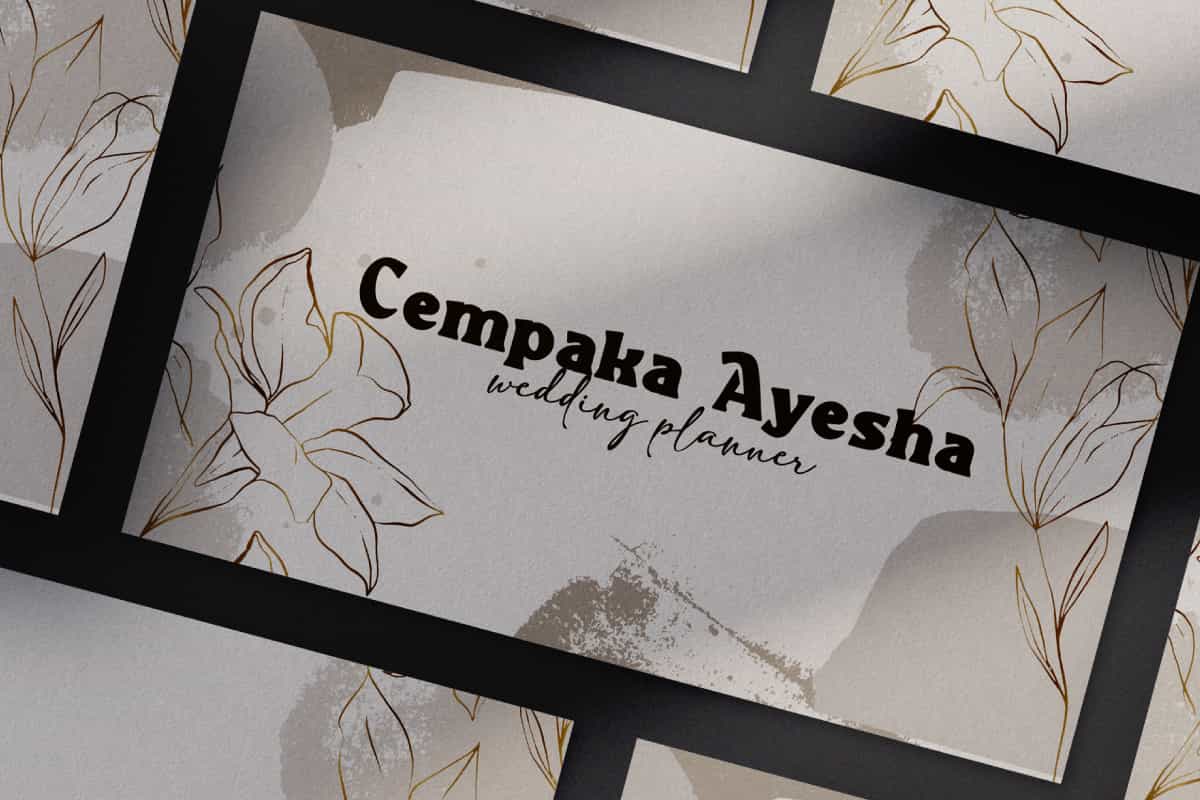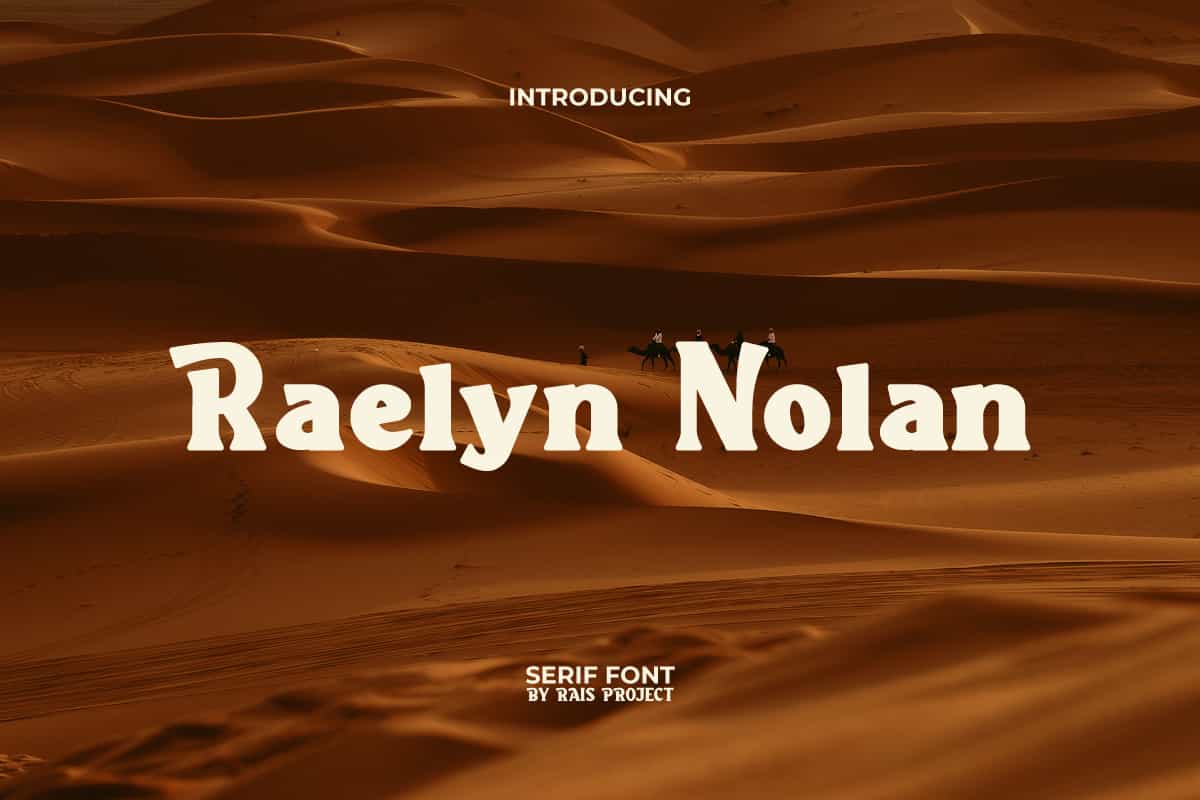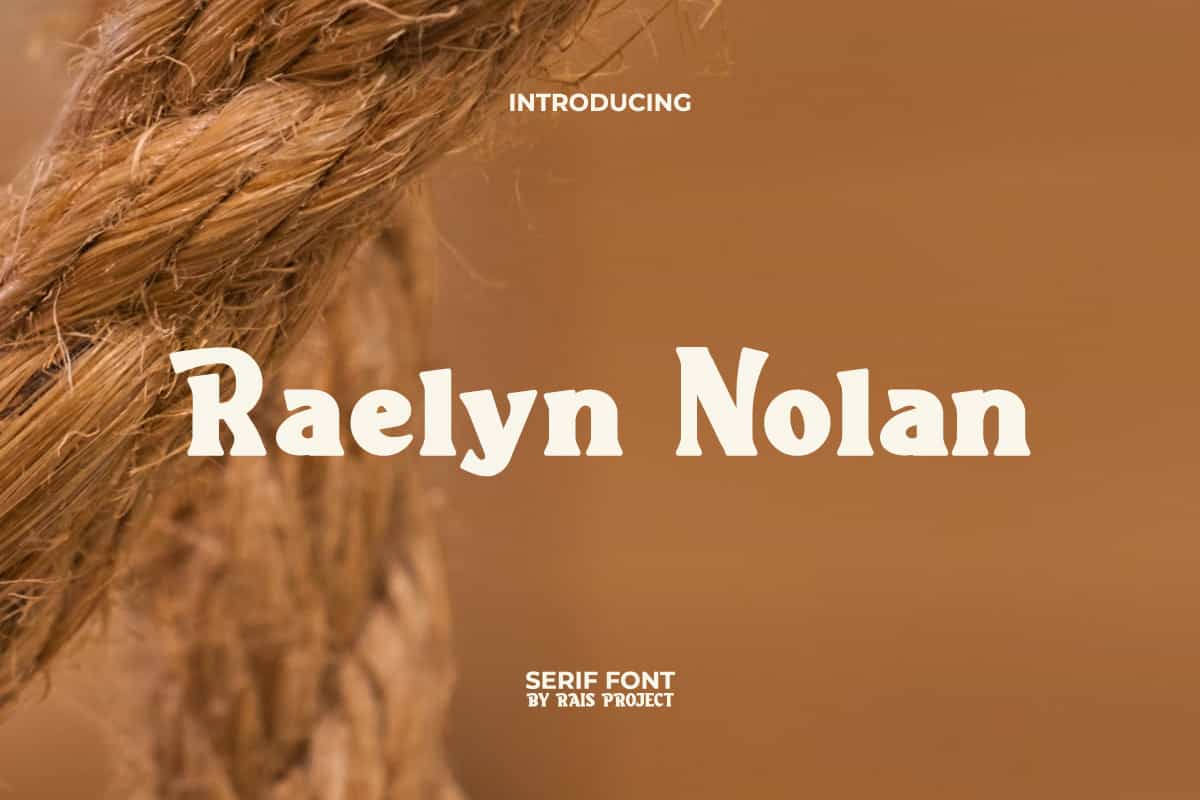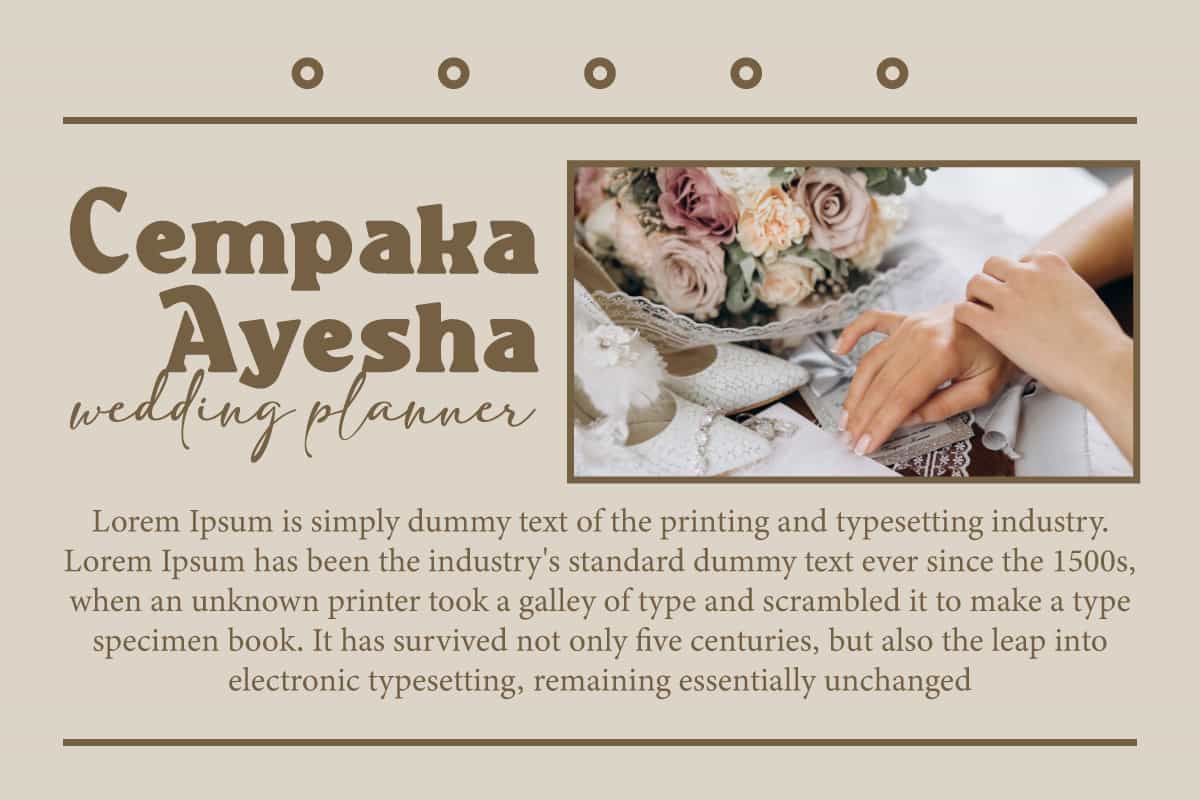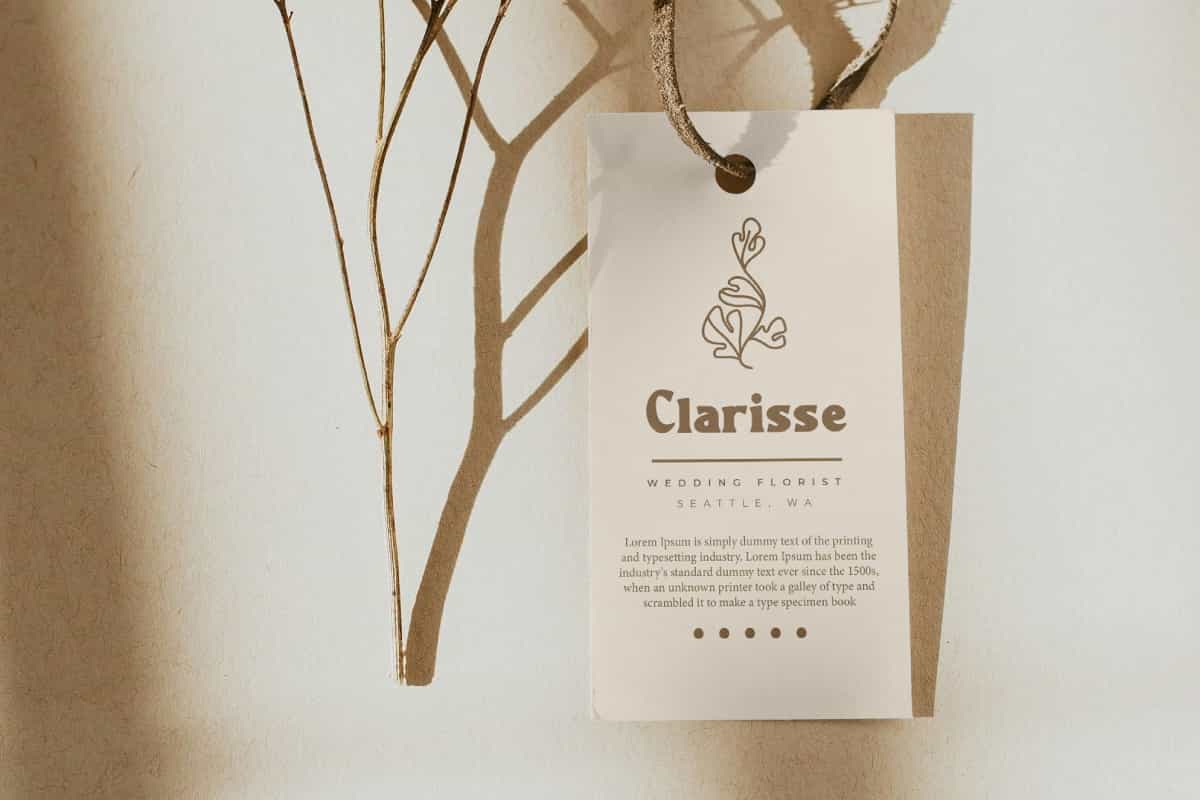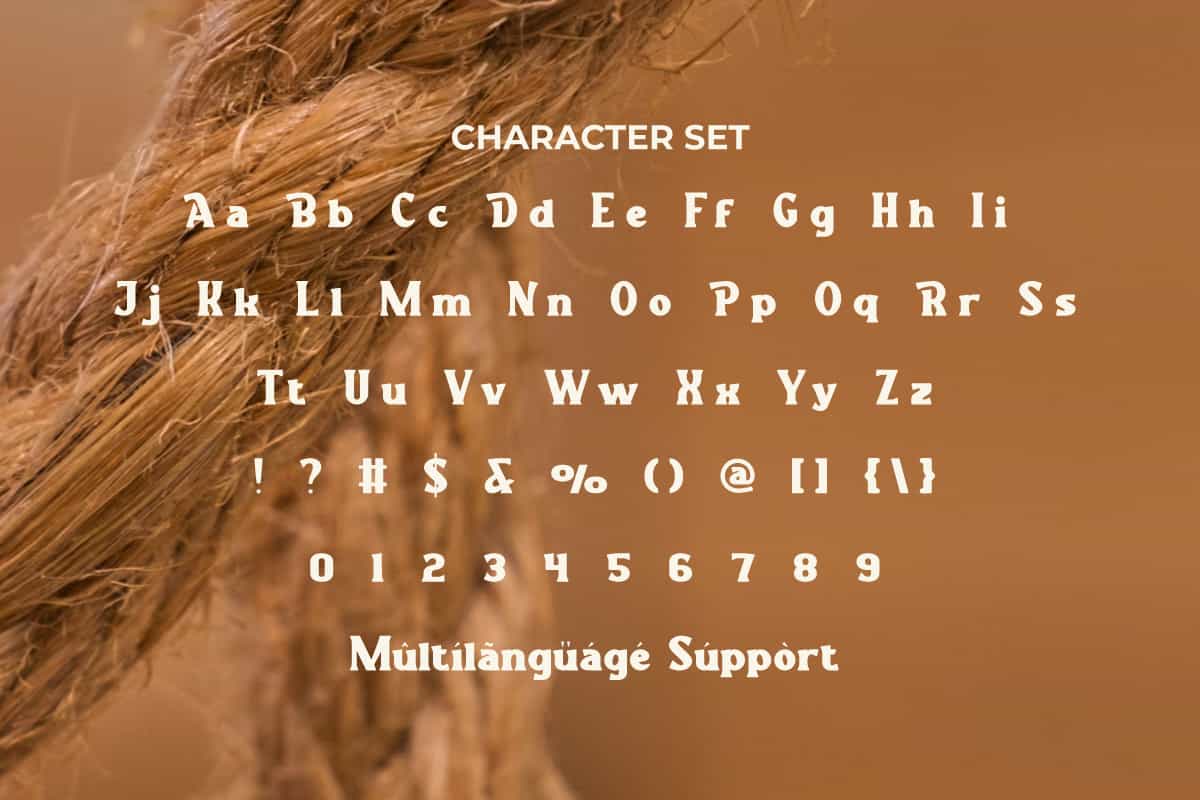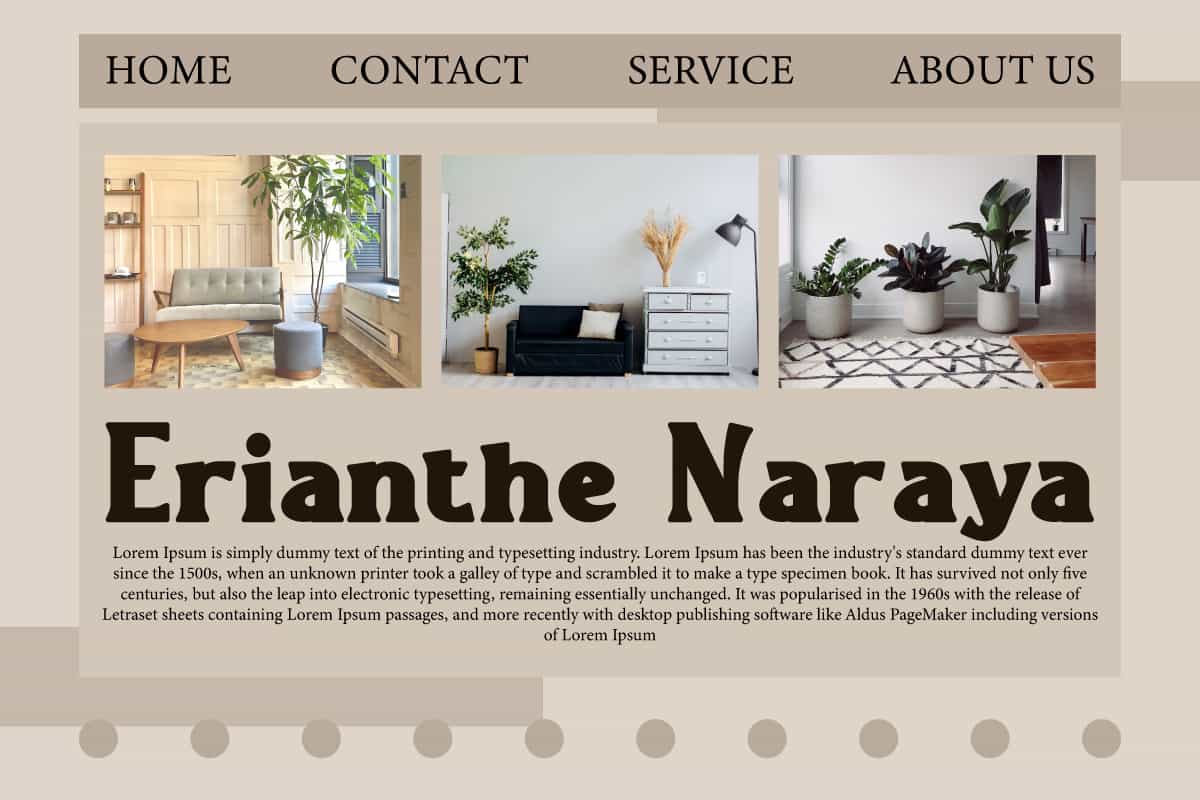
Raelyn Nolan Font
Raelyn Nolan Font is an adorable serif display font. Try using this font to make your designs stunning!
Raelyn Nolan Font is a serif font with a cute shape by RaisProject. This font has a charming style and can be paired with other font types. It will look good on invitation, stationery, poster, custom design, product packaging, quotes, signage, brand image, advertisement, label, marketing material, website page, and more!
Raelyn Nolan Font includes a full set of ALL CAPS for Uppercase and Lowercase Letters, Numerals, and large range of Punctuation. This stylish font will be suitable for various industries, such as fashion, jewelrycafe, event or wedding organizer, photography, printing, publishing, etc.